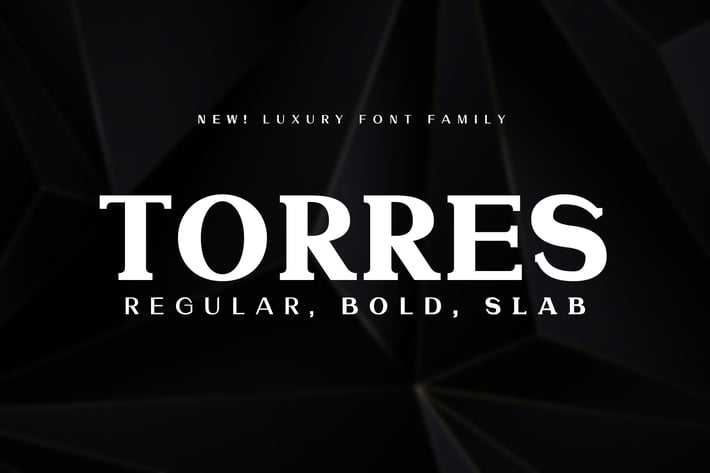
Torres Font Family
Torres font family is a combination of three fonts - Regular Sans Serif, Bold Sans Serif & Slab Serif that you can combine in unlimited The results are timeless and elegant and suitable for large display titles, logos and small paragraphs.
You can combine them in endless ways and create unique lockups and different logos. You'll also be getting 9 bonus free logo mockups made with Torres font family that you can customize as you see fit in Adobe Illustrator.